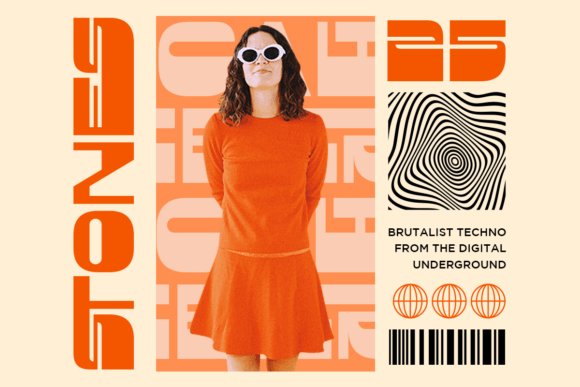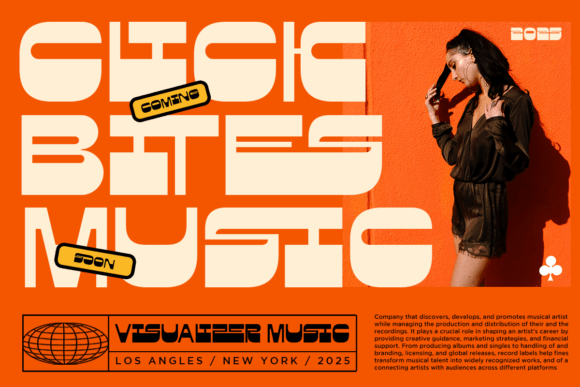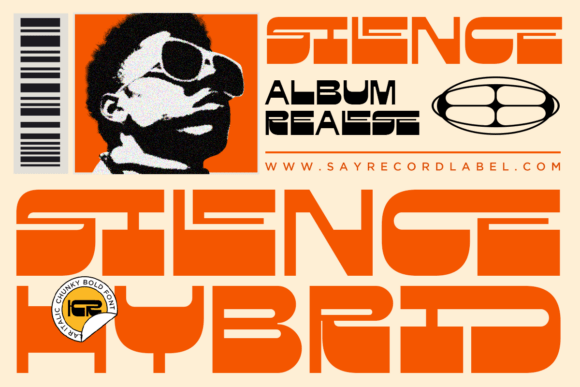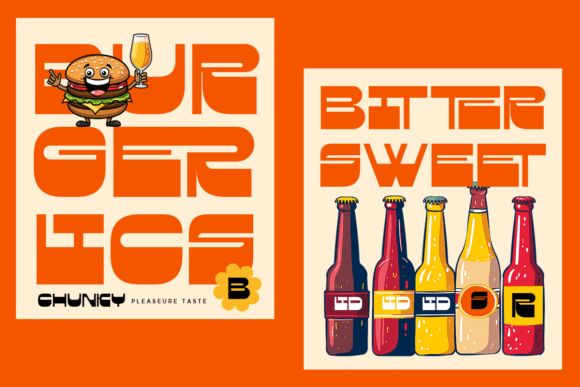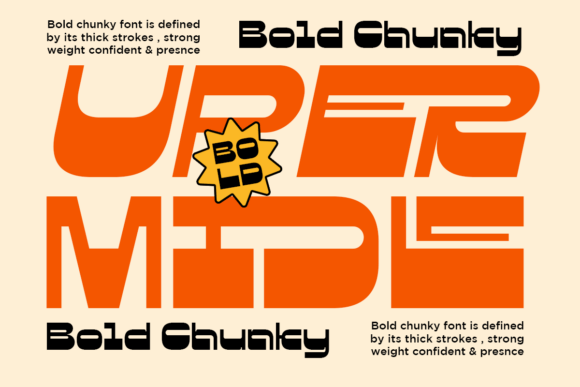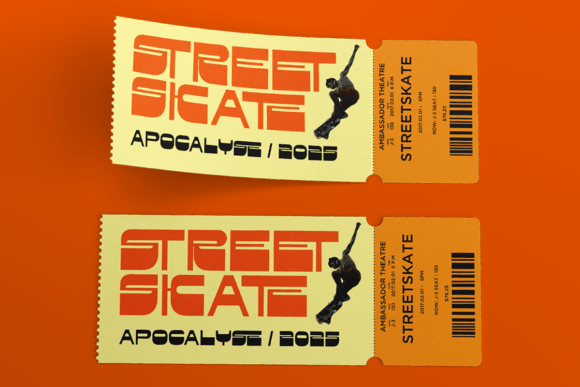
Introduction to Krisle – Bold Chunky Typeface Font
Have you ever stared at a blank canvas, trying to come up with the perfect visual statement for your next creative project? The blank page can be intimidating, but sometimes all it takes is the right font to spark inspiration. That’s where Krisle – Bold Chunky Typeface Font comes in – a game-changing design resource that’s about to revolutionize the way you approach typography.
Krisle – Bold Chunky Typeface Font is more than just a font; it’s a statement piece. With its heavy weight, rounded geometric shapes, and playful personality, this high-quality font is designed to make a lasting impression. Whether you’re working on a poster, headline, logo, or branding project, Krisle’s solid structure and fun character ensure excellent readability and high impact – making it a valuable asset for any designer looking to elevate their creative project.
Key Features of Krisle – Bold Chunky Typeface Font
- High-quality design resource ideal for creative projects requiring a bold, chunky font.
- Unique characteristics include a bold, chunky design and a wide range of language support, making it an excellent choice for multilingual creative projects.
Honest Review: Krisle – Bold Chunky Typeface Font
I recently stumbled upon the Krisle – Bold Chunky Typeface Font and I must say, it’s a great addition to any design resource collection. The font is available for free download, which is a major plus. Its high quality design makes it perfect for any creative project that requires a bold and eye-catching font.
What works well with this font is its versatility. It’s perfect for headings, titles, and even body text. The transparent background feature also makes it easy to use with any background image or color. The font is also highly customizable, which means you can adjust the size, color, and spacing to fit your design needs.
Pros and Cons:
- ✨ High-quality design makes it perfect for creative projects.
- ✨ Versatile and customizable.
- ✨ Transparent background feature.
- ⚠️ Limited character set.
- ⚠️ May not be suitable for fine typography.
Overall, I’m impressed with the Krisle – Bold Chunky Typeface Font. It’s a great addition to any design resource collection and is perfect for any creative project that requires a bold and eye-catching font.
Krisle – Bold Chunky Typeface Font is ideal for creating eye-catching headings, titles, and logos for various creative projects. Its high quality design makes it perfect for use in presentations, social media graphics, and other visual content. As a free download, it’s an excellent resource for designers and non-designers alike.
To get the most out of the Krisle – Bold Chunky Typeface Font, experiment with different font sizes, colors, and combinations. Use it in conjunction with other fonts to create a visually appealing design. Additionally, take advantage of the font’s bold and chunky design by using it in large headings or titles.